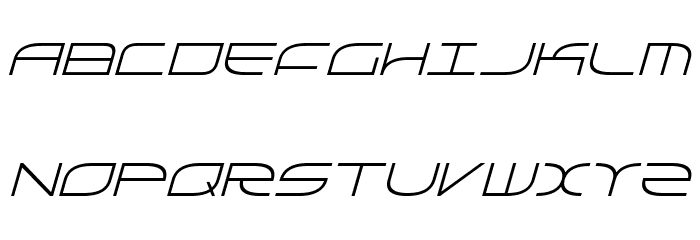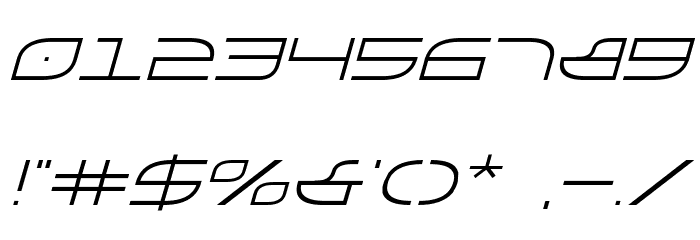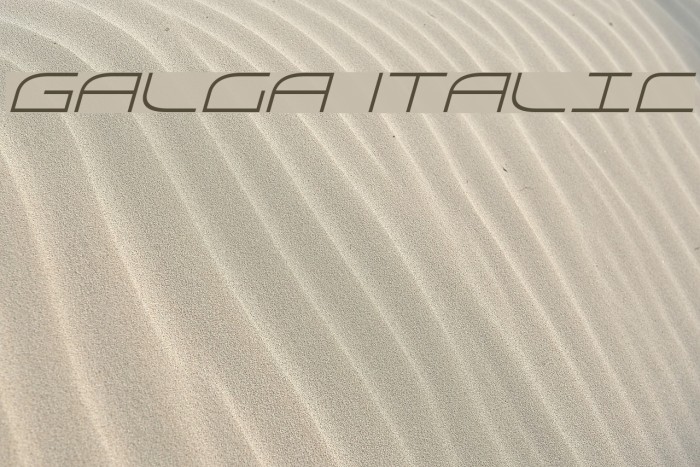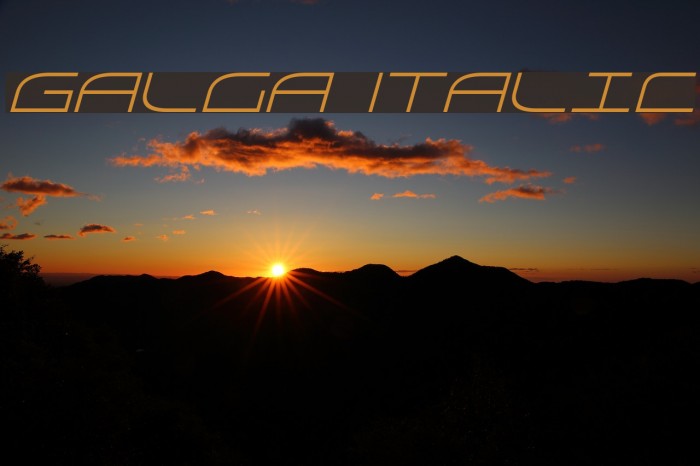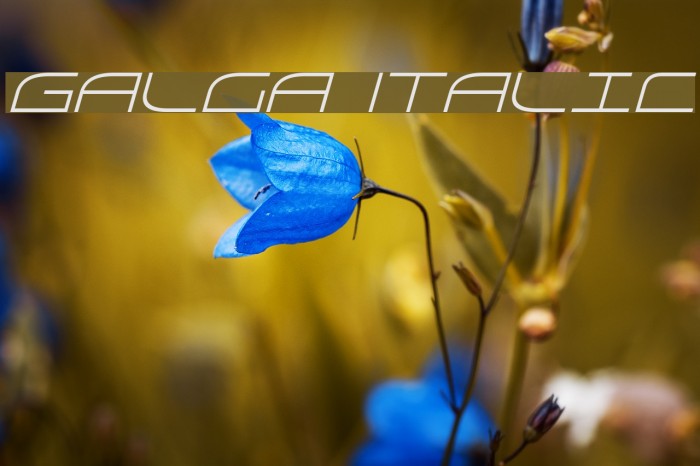
Galga Italic Font
This font features a sleek, futuristic design with a distinct italic slant, giving it a dynamic and forward-moving appearance. The characters are constructed with clean, geometric lines that create an open and airy feel. The uppercase and lowercase letters maintain a consistent style, with rounded edges and a uniform stroke width that enhances readability. The numerals and special characters follow the same design principles, ensuring a cohesive look across all elements. This font's modern aesthetic makes it suitable for projects that require a contemporary and innovative touch.
A sleek, futuristic italic font with geometric lines and a modern aesthetic.
- Proposed Projects: Ideal for tech branding, sci-fi themed designs, modern advertising, and innovative product packaging.
- Overall Style: Futuristic
- Use Case: Logos, Headlines, Tech Branding